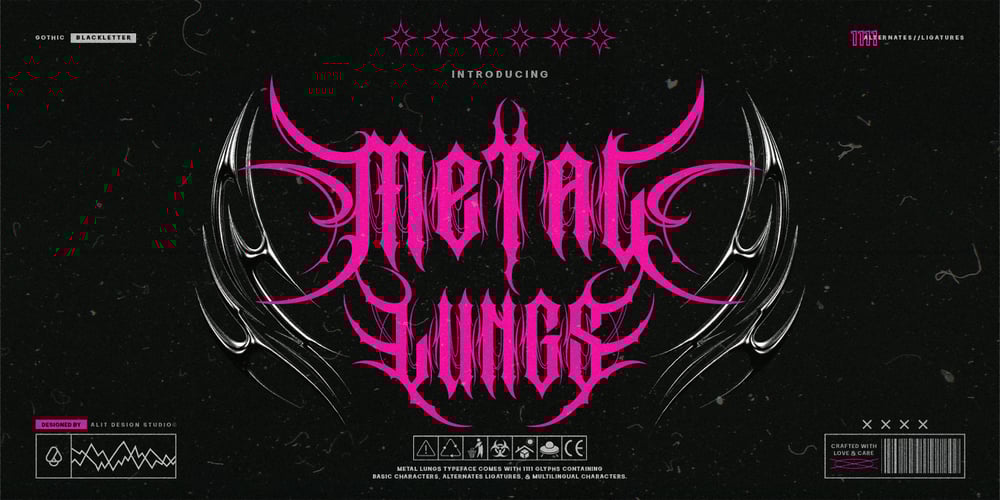
Metal Lungs Font Family was designed by Alit Suarnegara and published by Alit Design. Metal Lungs contains 1 styles and family package options. Introducing the “Metal Lung Typeface” – an epitome of raw power and rugged elegance. Inspired by the ferocity of black metal music and the untamed beauty of rocky terrains, this font is a testament to the dark allure of the underground.Crafted with meticulous detail, each letter embodies the essence of blackletter typography, yet veers into uncharted territories with its edgy modifications. Sharp, angular lines carve through the stark darkness, reminiscent of jagged spines jutting out from a desolate landscape.The “Metal Lung Typeface” exudes a primal energy, evoking images of ancient runes etched into weathered stone. Its bold presence commands attention, drawing the eye with its stark contrast and formidable presence.Perfect for album covers, posters, merchandise, and branding projects that demand a touch of the macabre, this font stands as a testament to the unyielding spirit of the underground metal scene.Unleash the power of darkness with the “Metal Lung Typeface” and make your designs roar with primal intensity.